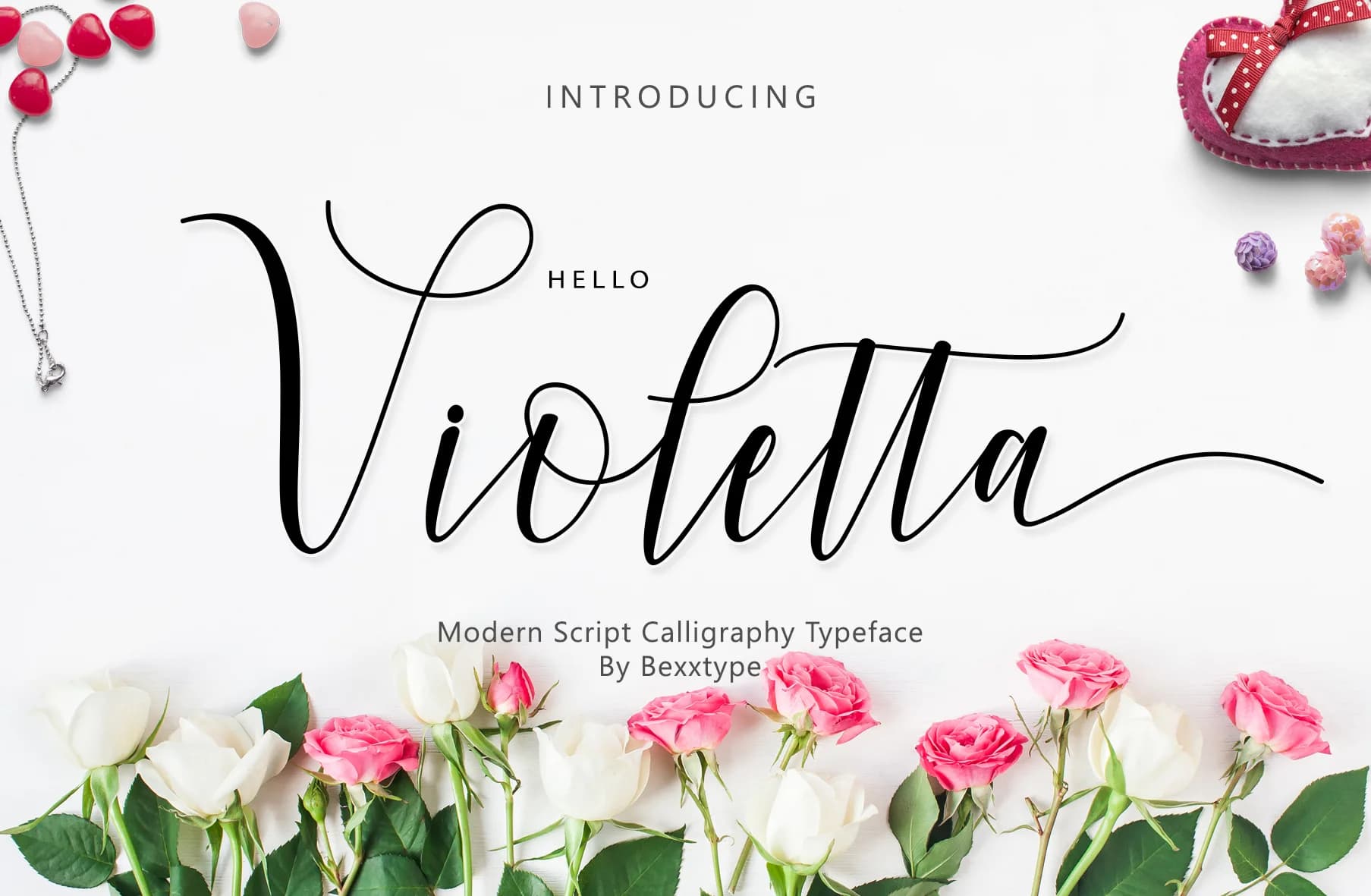
Hello Violetta by Bexx Type is a contemporary handwritten script that brings organic, flowing character to modern design work. With its expressive letterforms and natural aesthetic, this font excels at creating visually distinctive typography where personality and authenticity strengthen a brand's presence. The extensive 526 unique glyphs included in this typeface provide remarkable flexibility for diverse creative applications. Wedding invitation suites gain elegance through its flowing strokes, while artisan product labels, from indie skincare packaging to boutique coffee roastery branding, develop genuine character that resonates with conscious consumers. Designers consistently choose Hello Violetta for hand-lettered greeting card collections, custom monogram work, distinctive social media graphics that stand out in crowded digital feeds, and personalized stationery designs where authenticity becomes a genuine selling point for small businesses. This typeface bridges the gap between casual handwriting and professional typography, working well for projects demanding personality without sacrificing polish or refinement. From indie book cover lettering and DIY craft project signage to small-business branding applications and personalized gift packaging, Hello Violetta delivers the handwritten aesthetic that contemporary brands increasingly pursue. The expanded glyph collection ensures your designs remain unique rather than formulaic or predictable. Get Hello Violetta on Creative Fabrica and bring its authentic, distinctive character to your next creative project.
Hello Violetta Font is a script font that shines as a display or heading face. Pair it with a clean sans-serif or serif font for body text β the contrast creates a clear hierarchy while the two styles stay balanced and easy to read.
Hello Violetta Font
by Bexx Type